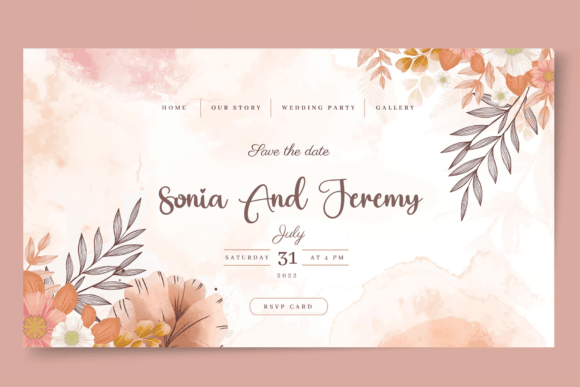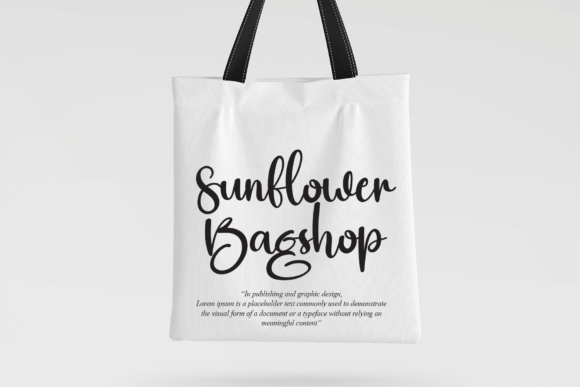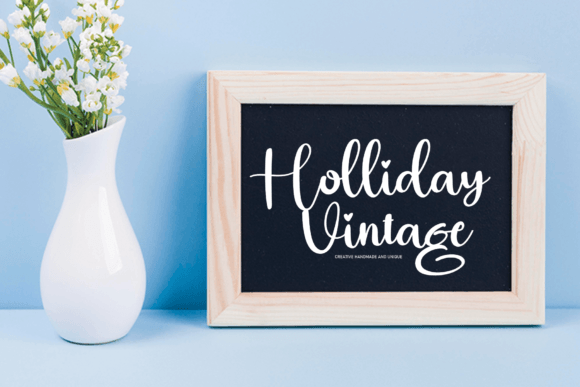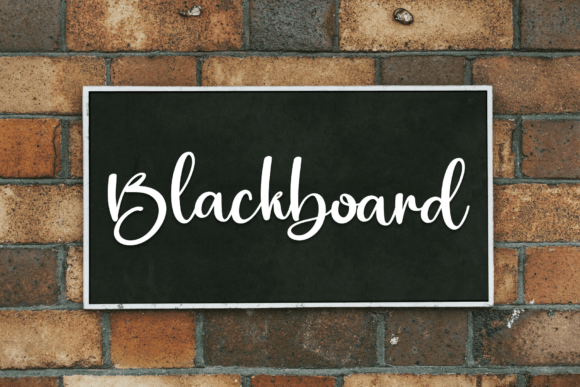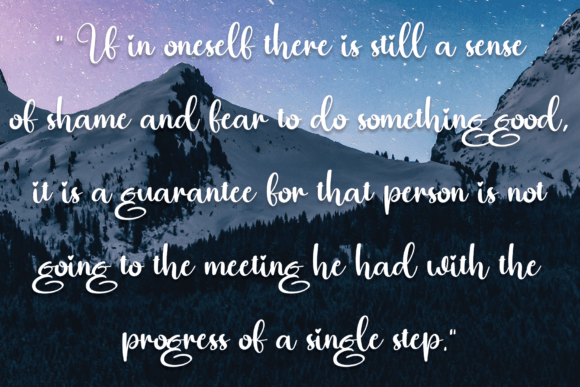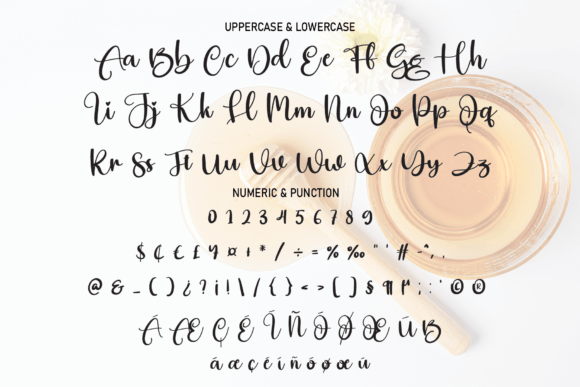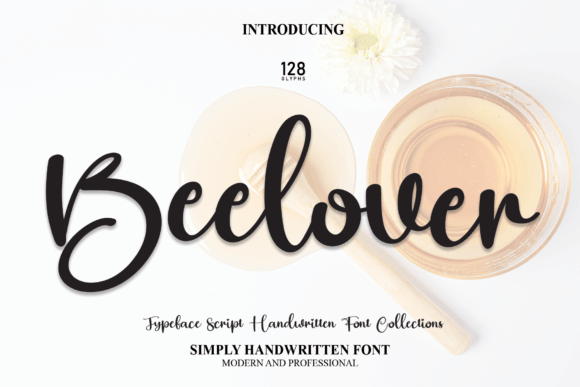
Introducing Beelover Font: Elevate Your Designs with Timeless Elegance
In the world of typography, a font can make or break a design. For designers and crafters seeking to add a touch of sophistication and style to their projects, Beelover Font is an exceptional choice. This stunning handwritten font boasts a contemporary atmosphere, impeccable form, and a balanced, varied aesthetic that is sure to elevate your work.
The Inspiration Behind Beelover Font
Beelover Font draws inspiration from timeless classic calligraphy, infusing it with a modern twist. The result is a font that exudes elegance and refinement, perfect for projects that demand a high level of sophistication. Whether you’re working on a logo, branding materials, or creative crafts, Beelover Font provides the perfect blend of style and versatility.
Key Features of Beelover Font
- Stylish Handwritten Design: Beelover Font features a beautiful, handwritten design that adds a personal touch to any project.
- Contemporary Atmosphere: With its modern aesthetic, Beelover Font is perfect for designers and crafters looking to create fresh, contemporary designs.
- Impeccable Form: The font’s impeccable form ensures that it remains legible and visually appealing, even at smaller sizes.
- Balanced and Varied: Beelover Font offers a range of variations, allowing you to add depth and interest to your designs.
Uses for Beelover Font
Beelover Font is incredibly versatile, making it suitable for a wide range of projects, including:
- Logo Design: Create stunning logos that showcase your brand’s personality and style.
- Branding Materials: Elevate your brand’s visual identity with Beelover Font, perfect for business cards, letterheads, and more.
- Creative Crafts: Add a touch of elegance to your handmade crafts, such as scrapbooking, card making, and DIY projects.
- Digital Designs: Use Beelover Font in your digital designs, including social media graphics, blog posts, and website headers.
Why Choose Beelover Font?
With so many fonts available, why choose Beelover Font? Here are just a few reasons:
- Unique Style: Beelover Font offers a distinctive, stylish design that sets it apart from other fonts.
- High-Quality Design: The font is meticulously crafted to ensure that it meets the highest standards of quality and legibility.
Tips for Using Beelover Font
To get the most out of Beelover Font, here are a few tips:
- Experiment with Sizes: Beelover Font looks stunning at a range of sizes, from large headings to smaller body text.
- Pair with Other Fonts: Try pairing Beelover Font with other fonts to create visually interesting combinations.
- Use in Combination with Images: Beelover Font looks beautiful when used in combination with images, adding a touch of elegance to your designs.
Beelover Font is a stunning, stylish handwritten font that is sure to elevate your designs. With its timeless classic calligraphy inspiration, impeccable form, and balanced, varied aesthetic, it’s the perfect choice for designers and crafters seeking to add a touch of sophistication to their projects. Whether you’re working on a logo, branding materials, or creative crafts, Beelover Font is an exceptional choice.